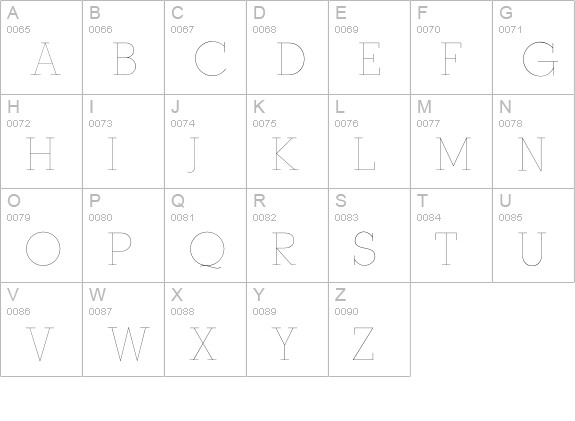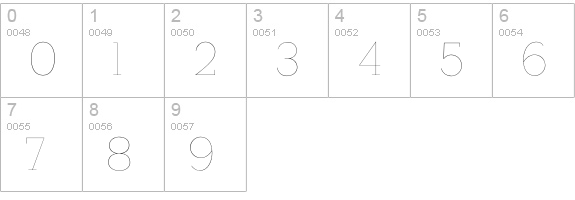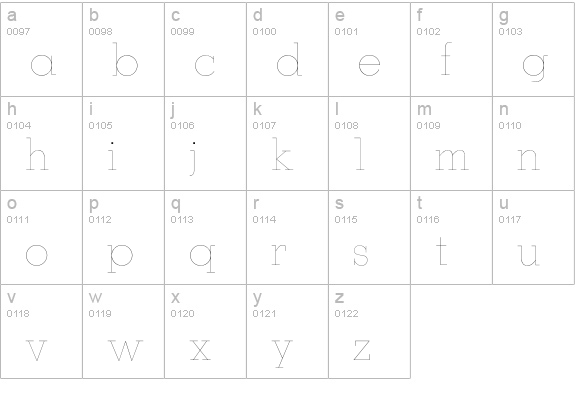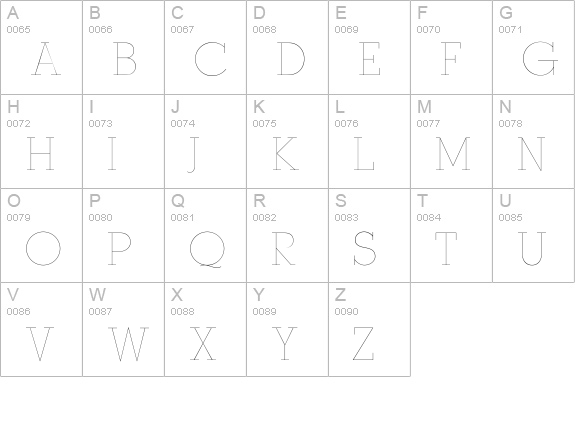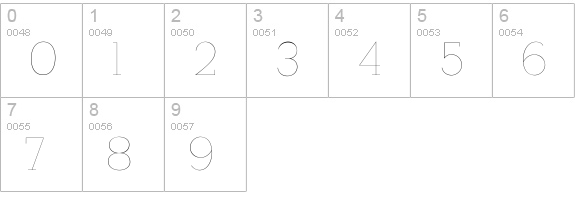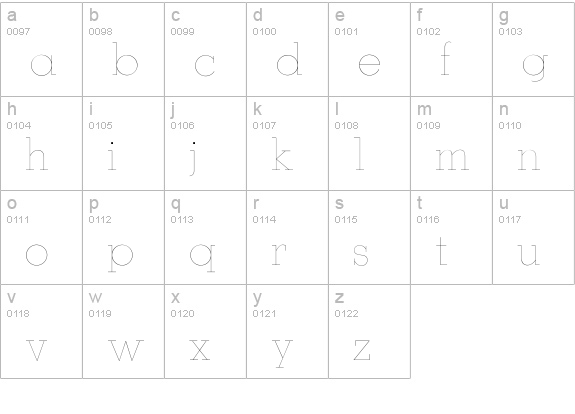
StymieHairline Font Details
StymieHairline font is a sleek and elegant typeface that exudes sophistication and modernity. With its delicate strokes and refined curves, this font is perfect for adding a touch of class to any design project. StymieHairline is ideal for headlines, logos, branding, and more, making it a versatile choice for a wide range of applications. The best part? StymieHairline font is available for free download at FontsMarket.com, so you can easily add this stylish typeface to your collection without breaking the bank. Don't miss out on the opportunity to enhance your designs with the timeless beauty of StymieHairline font – download it today and let your creativity soar!